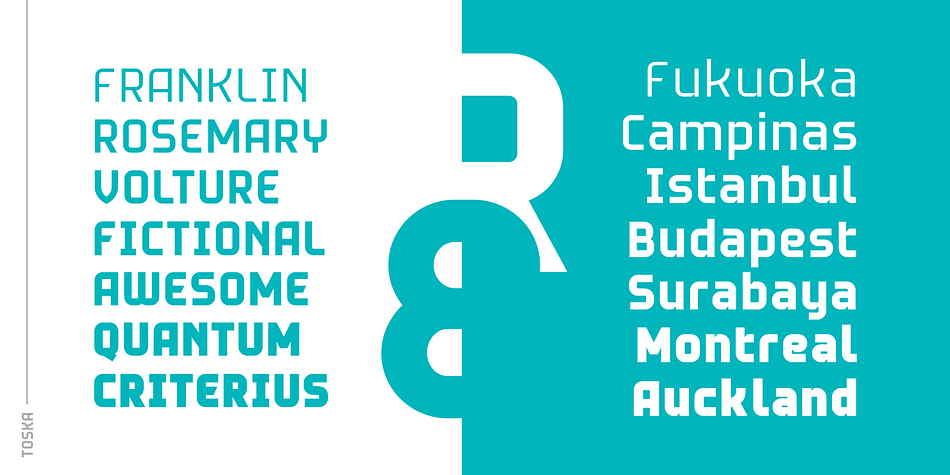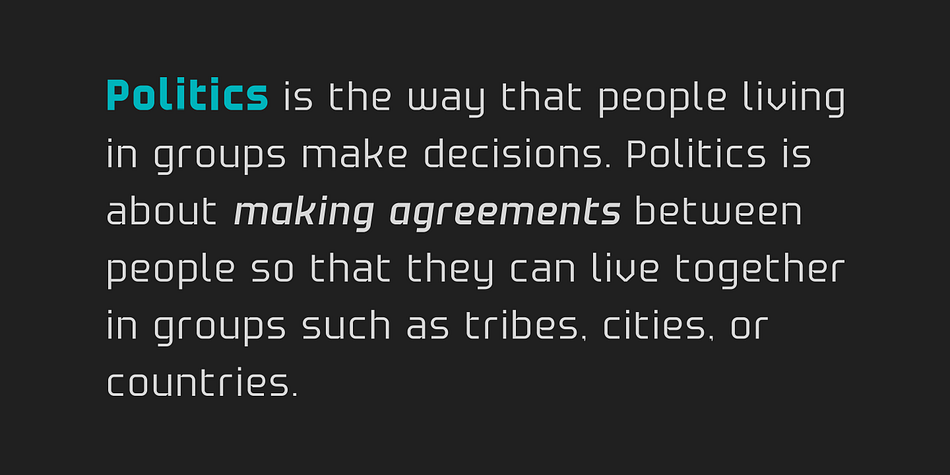
Toska
Toska is a display sans font family. This typeface has sixteen styles and was published by Locomotype.
Toska is a geometric sans serif font. This font has a strong but friendly impression because the rounded corners make the eyes feel comfortable. Suitable for headings, poster titles, logotypes, signage, packaging and Toska can even be used for interesting paragraphs.
Comes in eight weights, each weight having an italic version so you are free to pair various weights to make your typography more attractive.